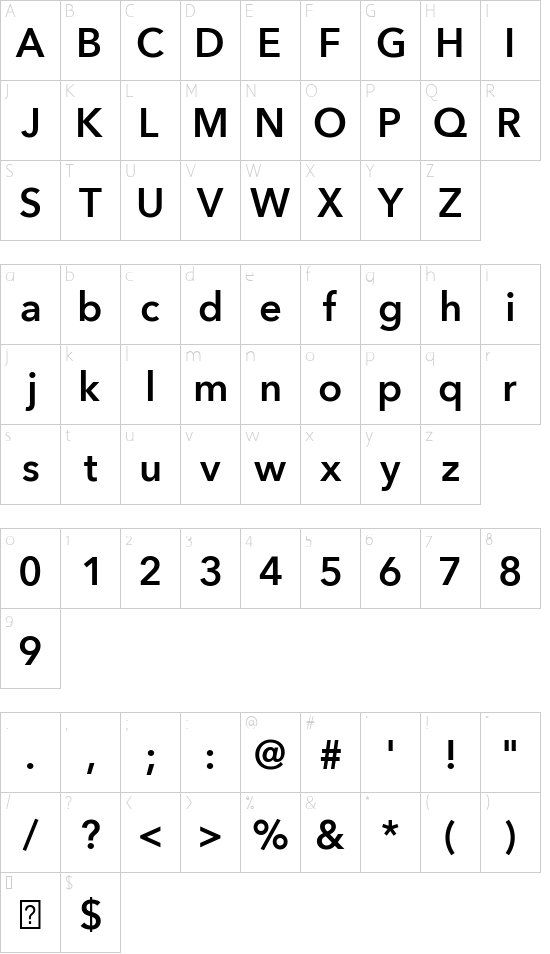
Avinir Next Font
Avinir Next Font - Web since its release, the avenir next design has been immensely popular for an extensive range of different. Avenir next pro is a new take on a classic face—it’s the result of a project whose goal was to take.
Web since its release, the avenir next design has been immensely popular for an extensive range of different. Avenir next pro is a new take on a classic face—it’s the result of a project whose goal was to take.
Avenir next pro is a new take on a classic face—it’s the result of a project whose goal was to take. Web since its release, the avenir next design has been immensely popular for an extensive range of different.
Web Since Its Release, The Avenir Next Design Has Been Immensely Popular For An Extensive Range Of Different.
Avenir next pro is a new take on a classic face—it’s the result of a project whose goal was to take.